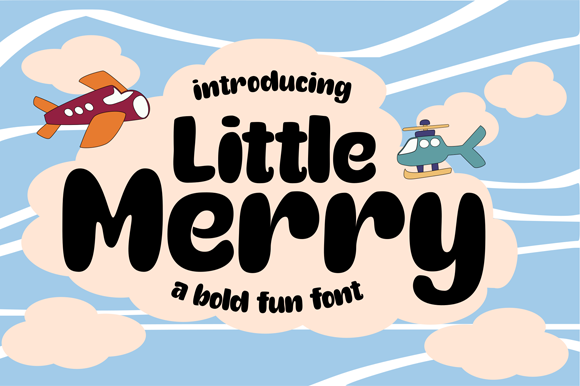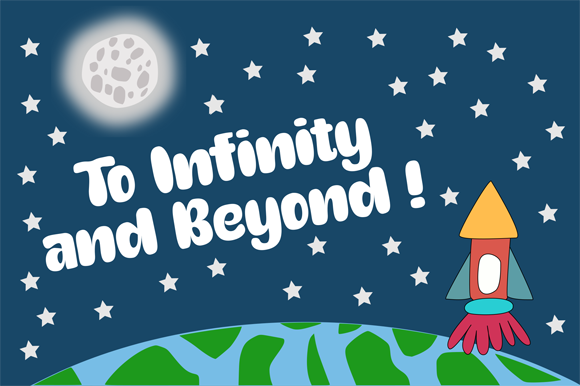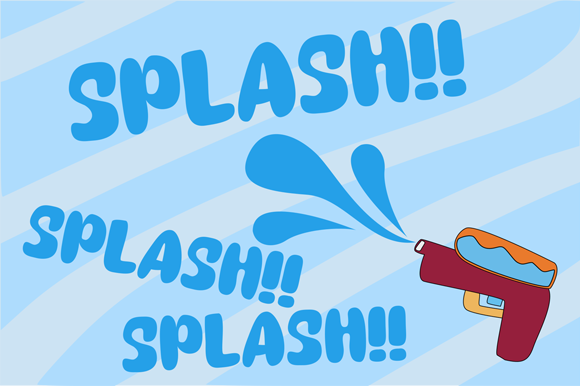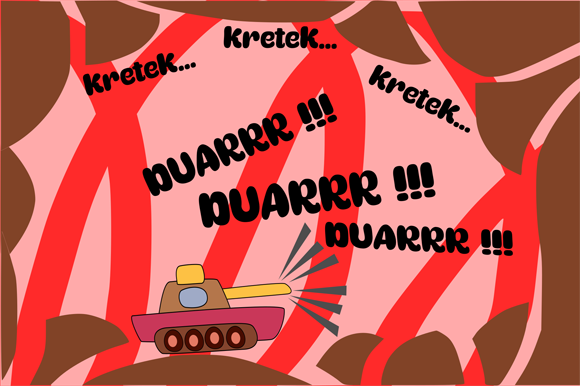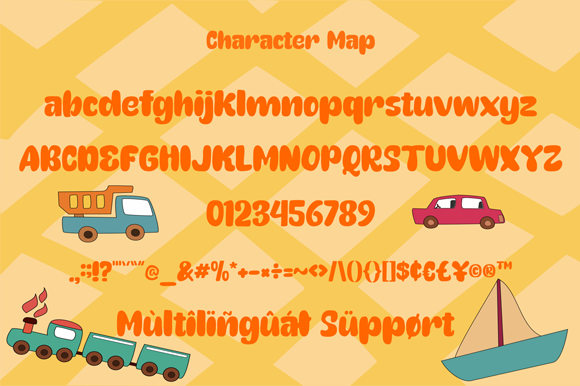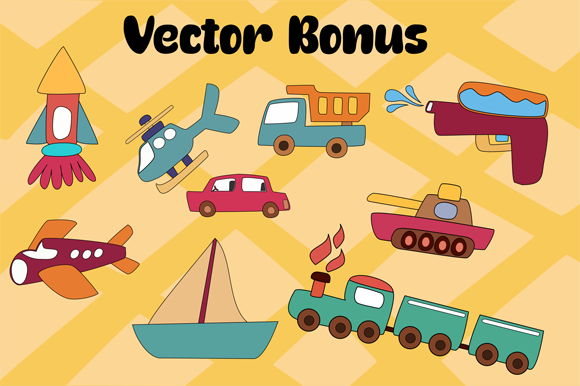
HomeScript FontsLittle Merry Font Script Fonts Little Merry Font FacebookXPinterestWhatsApp Little Merry Font Poster 2 Little Merry Font Poster 3 Little Merry Font Poster 4 Little Merry Font Poster 5 Little Merry Font Poster 6 About Little Merry Font Little Merry is a fun, friendly and charming script font with a bold style. Get inspired by its whimsical style! DOWNLOAD ON CREATIVE FABRICAThis font is sold and delivered by Creative Fabrica. Font Canyon may earn a commission if you buy through this link. People also explored Rojashot Font Dragonblood Hello Olive Font Neboma Sporte Font Klamoure Font Triple Shots Handwritten Font Font Downhill Dive Patricea Font Lemonile Font 316 0 TagsLittle Merry Font Previous articleAromi FontNext articleQueen Font LEAVE A REPLY Cancel reply Comment: Please enter your comment! Name:* Please enter your name here Email:* You have entered an incorrect email address! Please enter your email address here Website: Save my name, email, and website in this browser for the next time I comment. Personal Use Free Ciggs Personal Use Free Read more about this font White Rose Personal Use Free Read more about this font Gaboed Personal Use Free Read more about this font Mahisya Personal Use Free Read more about this font BLOG Where to Buy American Fonts Online in 2024 Where to Buy American Fonts Online: The Ultimate Guide for 2024 Looking for the perfect American font to elevate your design projects? You're in the... Best Fonts for T-Shirt Design – Top 2025 Picks Exploring Font Trends How to Cut Any Font on Cricut: Convert a Font to SVG (Free)